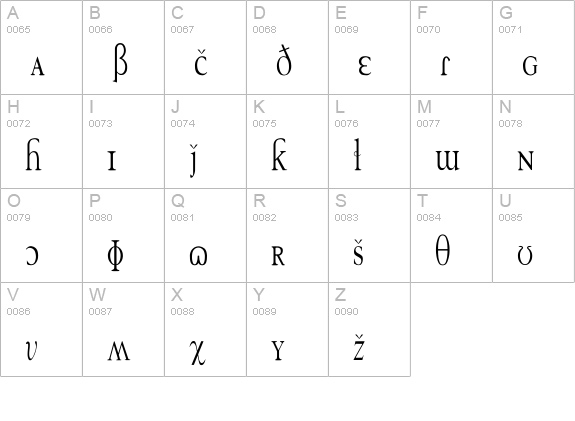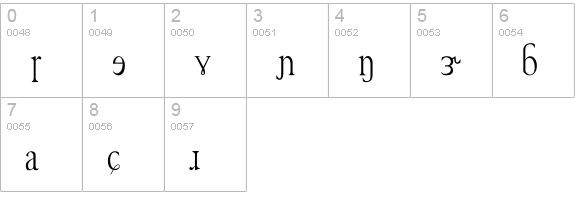
TechPhonetic Cn Font Details
TechPhonetic Cn font is a sleek and modern typeface that is perfect for all your technological and digital design projects. With its clean lines and sharp edges, this font exudes a sense of efficiency and precision. Designed specifically for use in tech-related content, TechPhonetic Cn font is the ideal choice for websites, mobile apps, software interfaces, and more. Its legible and easily recognizable characters make it easy for users to navigate and understand the information presented. What sets TechPhonetic Cn font apart is its versatility. It can be used for both headings and body text, making it a great option for creating a cohesive and professional look throughout your designs. Whether you need to highlight important information or convey a sense of hierarchy, this font has got you covered. One of the best things about TechPhonetic Cn font is that it is available for free. That's right, you can download this amazing font without spending a dime. Simply head over to FontsMarket.com and grab your copy today. By using TechPhonetic Cn font, you can add a touch of modernity and sophistication to your projects without breaking the bank. So why wait? Start using this fantastic font and take your designs to the next level. Download TechPhonetic Cn font for free at FontsMarket.com and unlock a whole new world of possibilities.